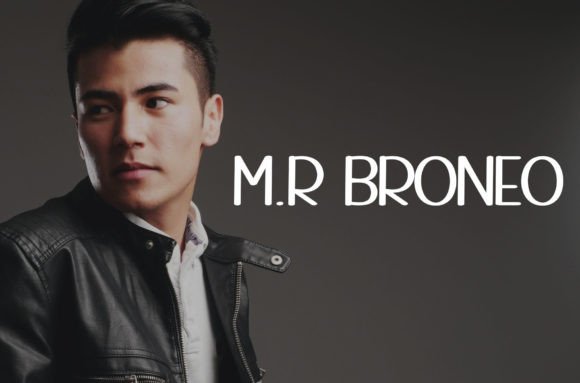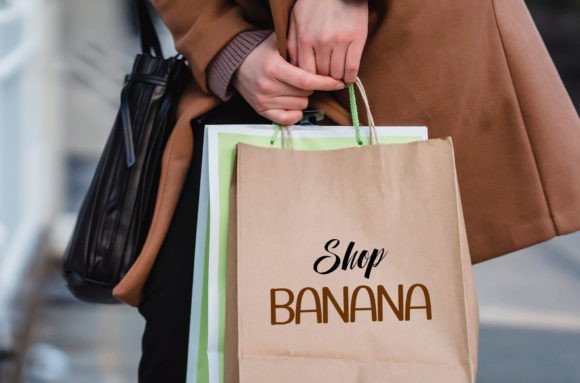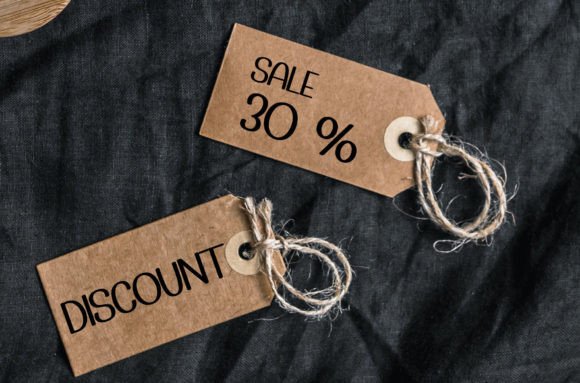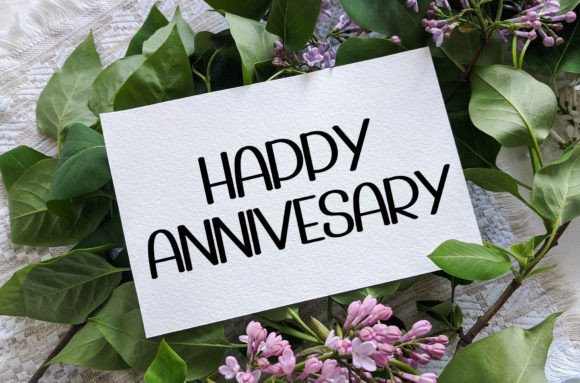
Daily Planner Font
About Daily Planner Font
Daily Planner is a fun and casual handwritten font. Incredibly versatile, this font is suitable for a wide pool of design ideas.